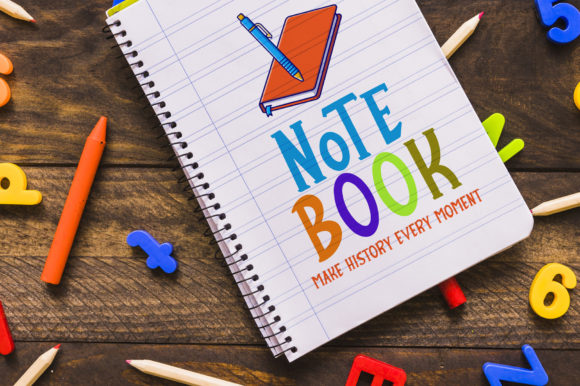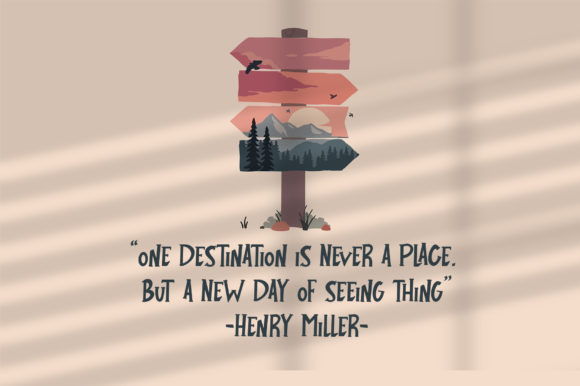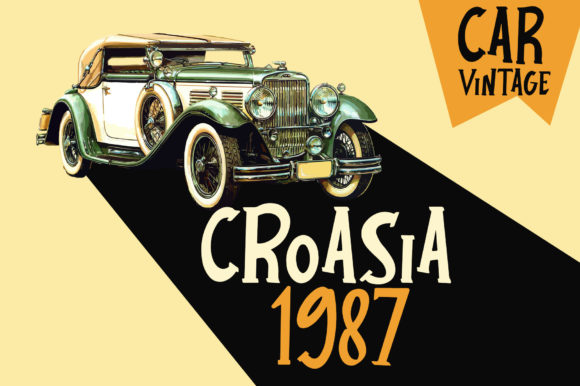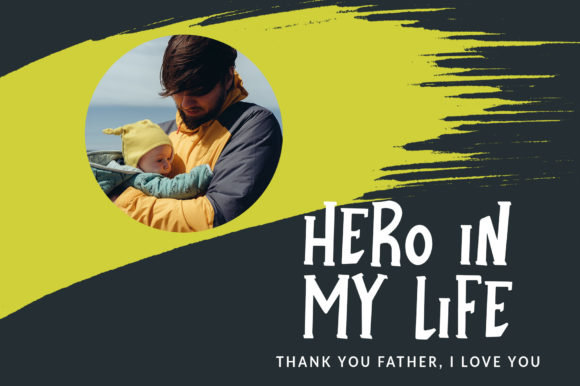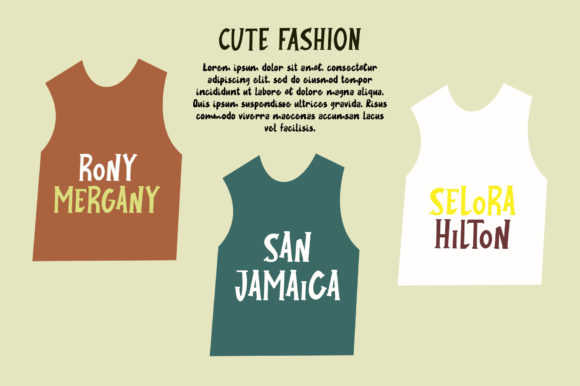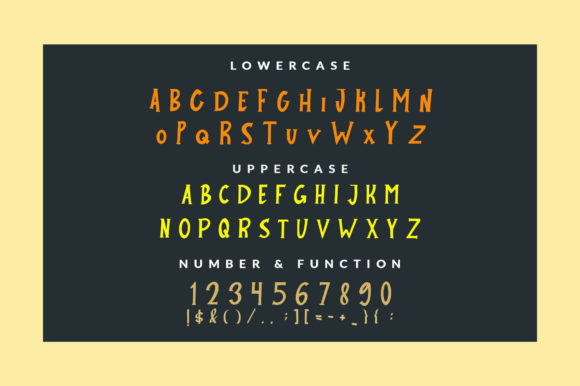
Introduction to Siginjai Mountain Font Font
Fonts play a crucial role in design, and the Siginjai Mountain Font font is a typeface that brings both character and versatility to any project. Whether you’re working on a branding project, a website, or a print design, the Siginjai Mountain Font font offers a unique style that can elevate your work.
Siginjai Mountain is an assertive and authentic serif font.
Whatever the topic, this font will be a wonderful asset to your font library, as it has the potential to enhance any creation .
Key Features of Siginjai Mountain Font Font
Why Choose Siginjai Mountain Font Font?
The Siginjai Mountain Font font is more than just a typeface – it’s a design tool that helps you communicate your message with style and clarity. Its unique character set and versatile design make it suitable for a wide range of applications, from elegant invitations to bold headlines.
With its carefully crafted letterforms and balanced proportions, the Siginjai Mountain Font font ensures readability and visual appeal across all mediums.
What makes Siginjai Mountain Font font special?
The Siginjai Mountain Font font stands out with its unique design, exceptional readability, and versatility across various design applications.